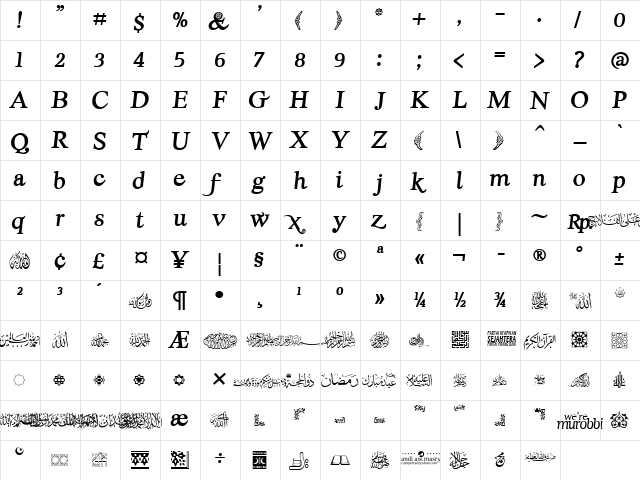
pks-masry Bold Italic
| Foundry | andi aw. masry |
| Designer | andi aw. masry |
Design Context for pks-masry Typeface
pks-masry takes a measured approach to typography — its balanced proportions and neutral character make it a reliable workhorse for both digital and print work. Its italic angle brings a sense of urgency and motion to the letterforms. The heavy weight commands attention and anchors typographic hierarchies.
Pro Tip: Use pks-masry for emphasis, pull quotes, and subheadings where its slanted energy can add rhythm to the layout.